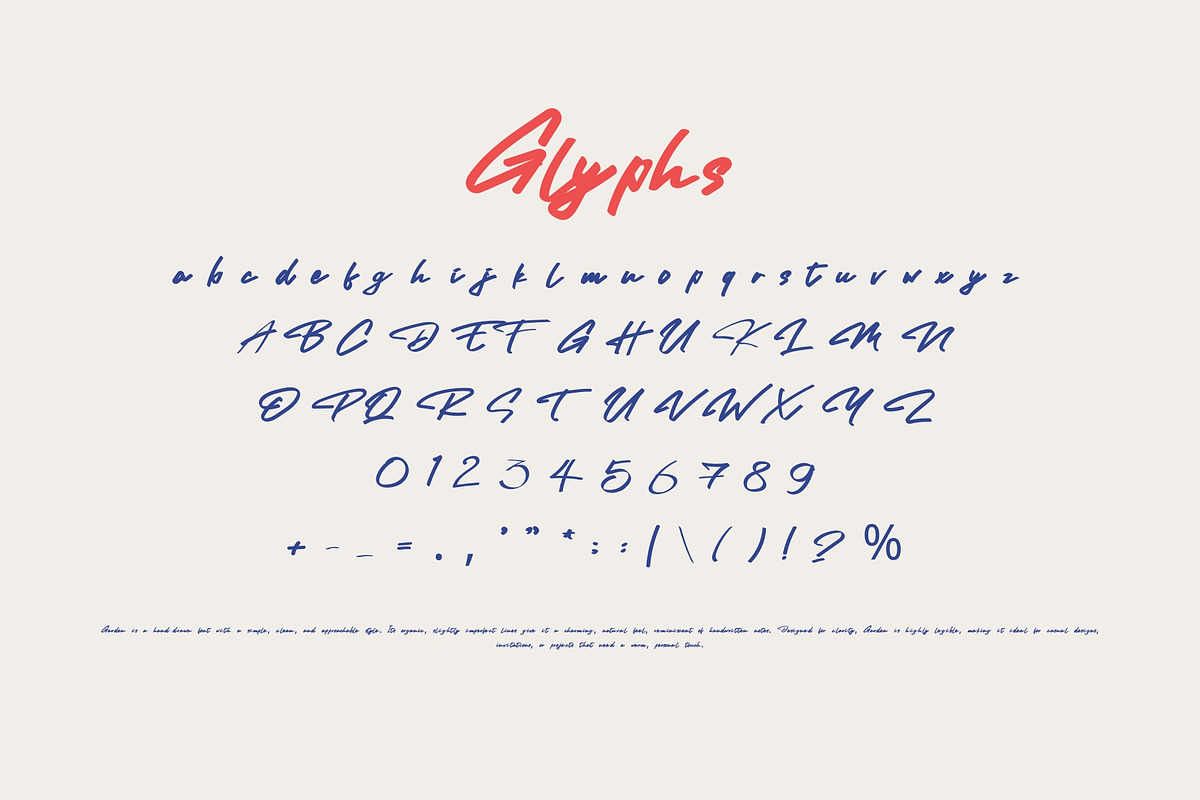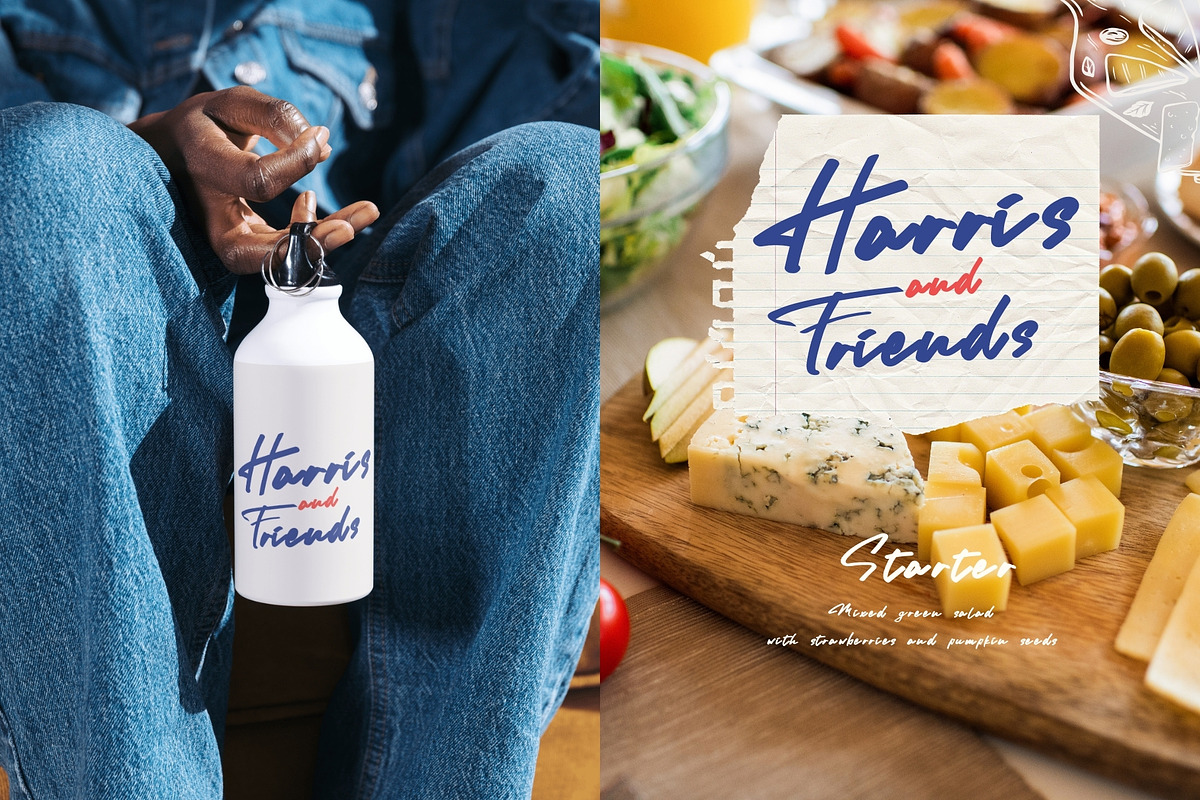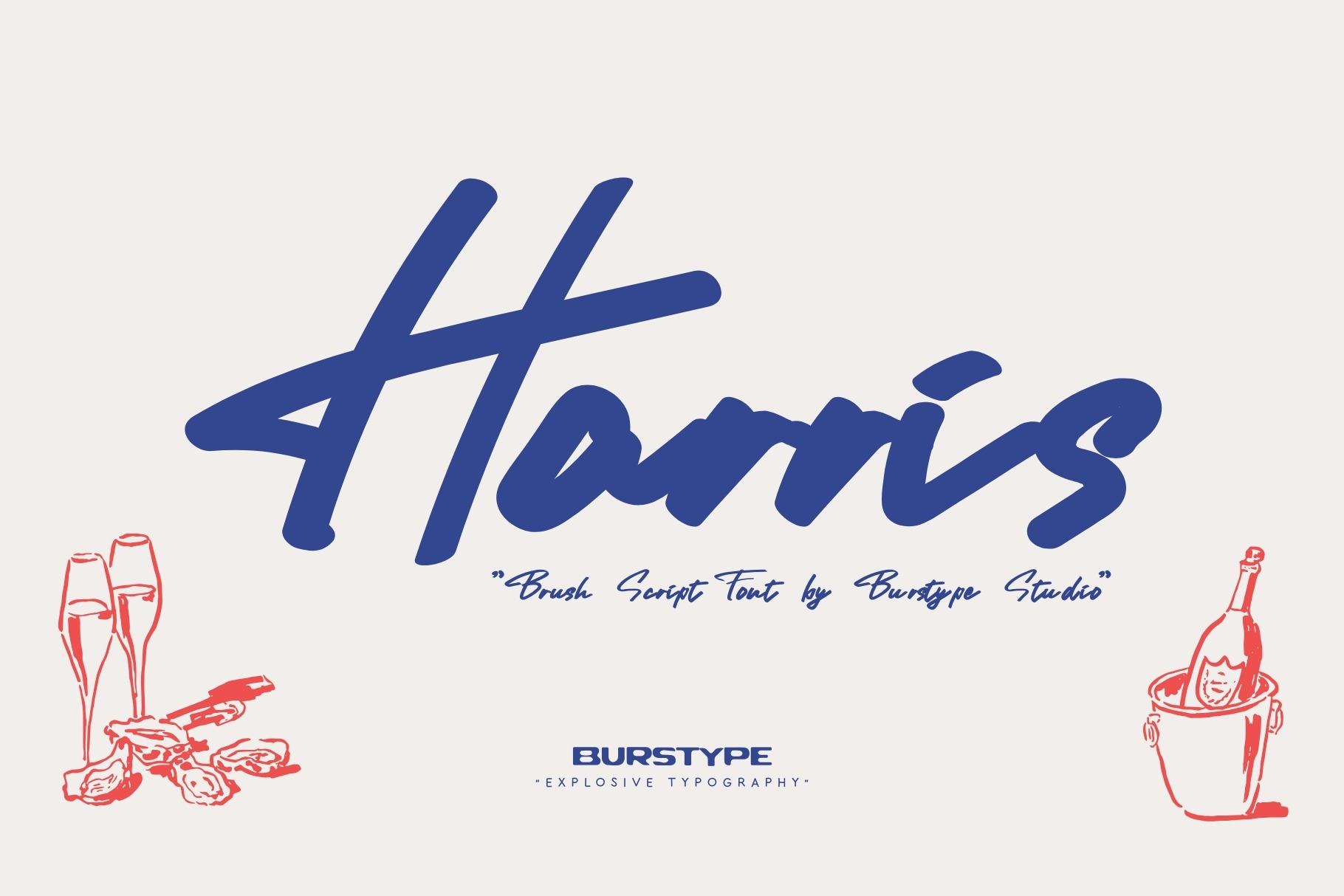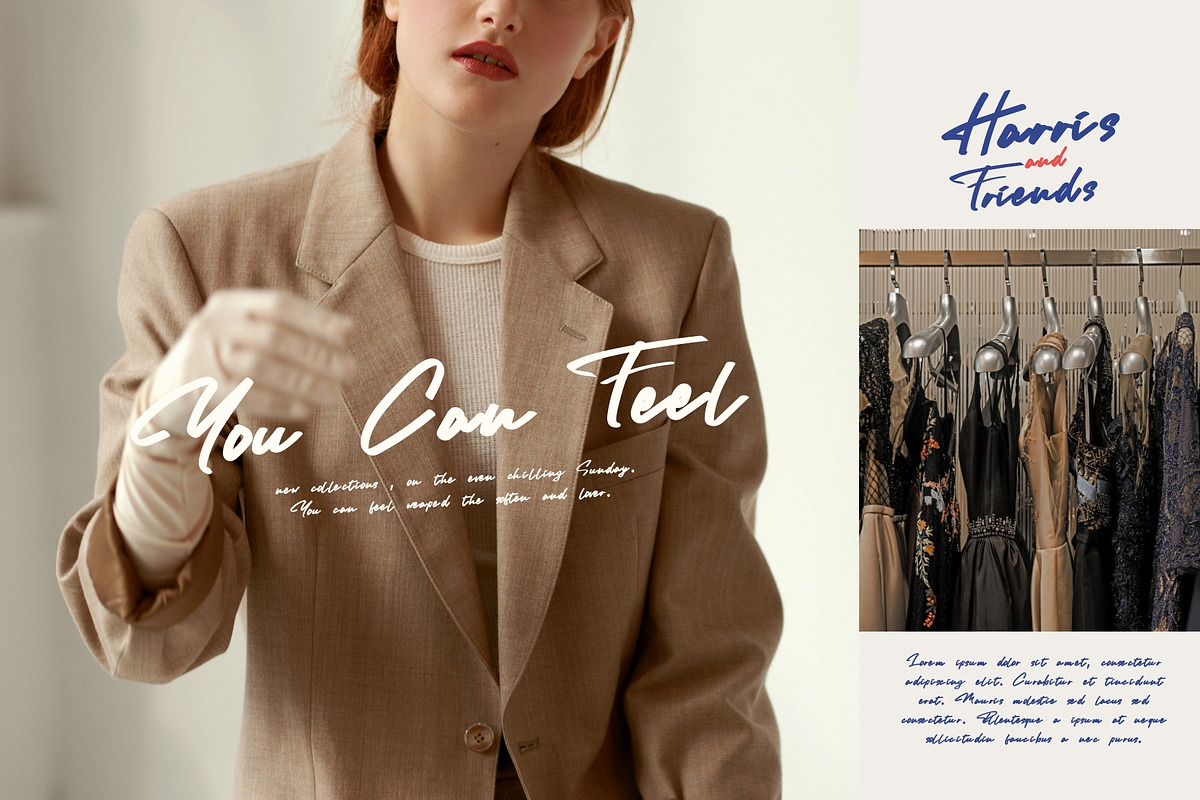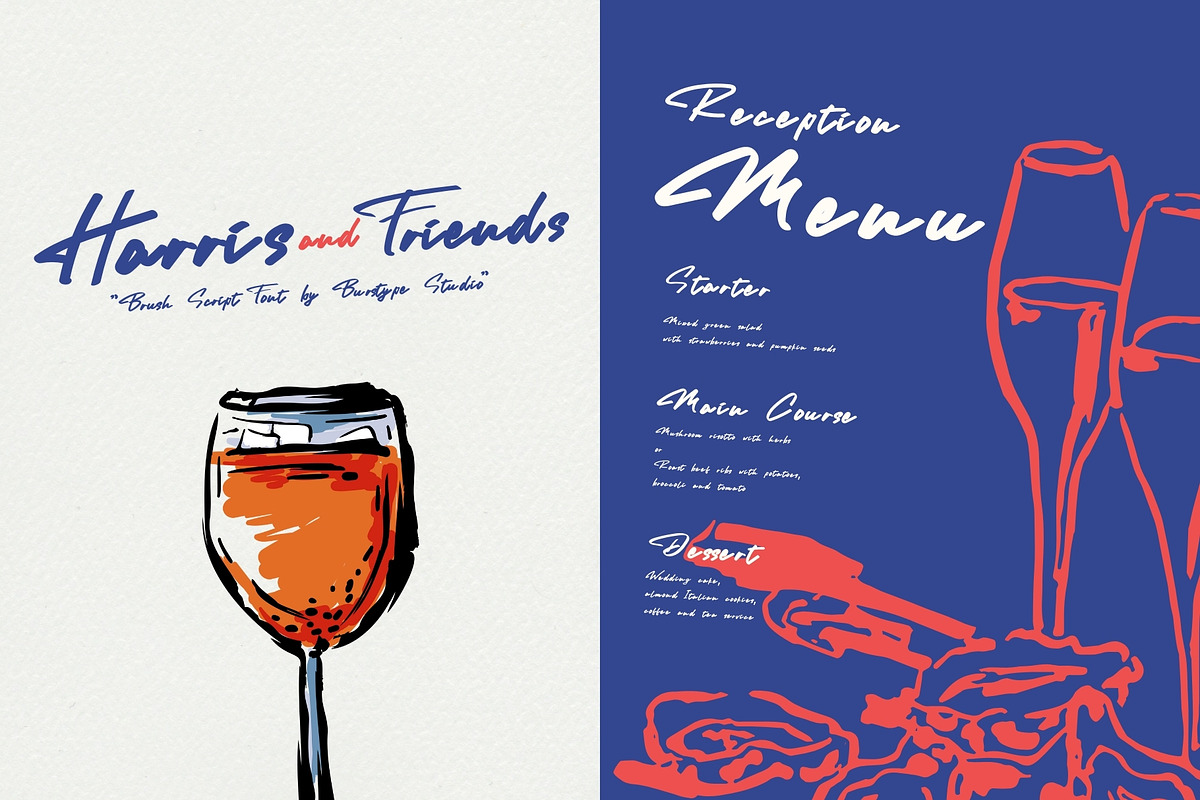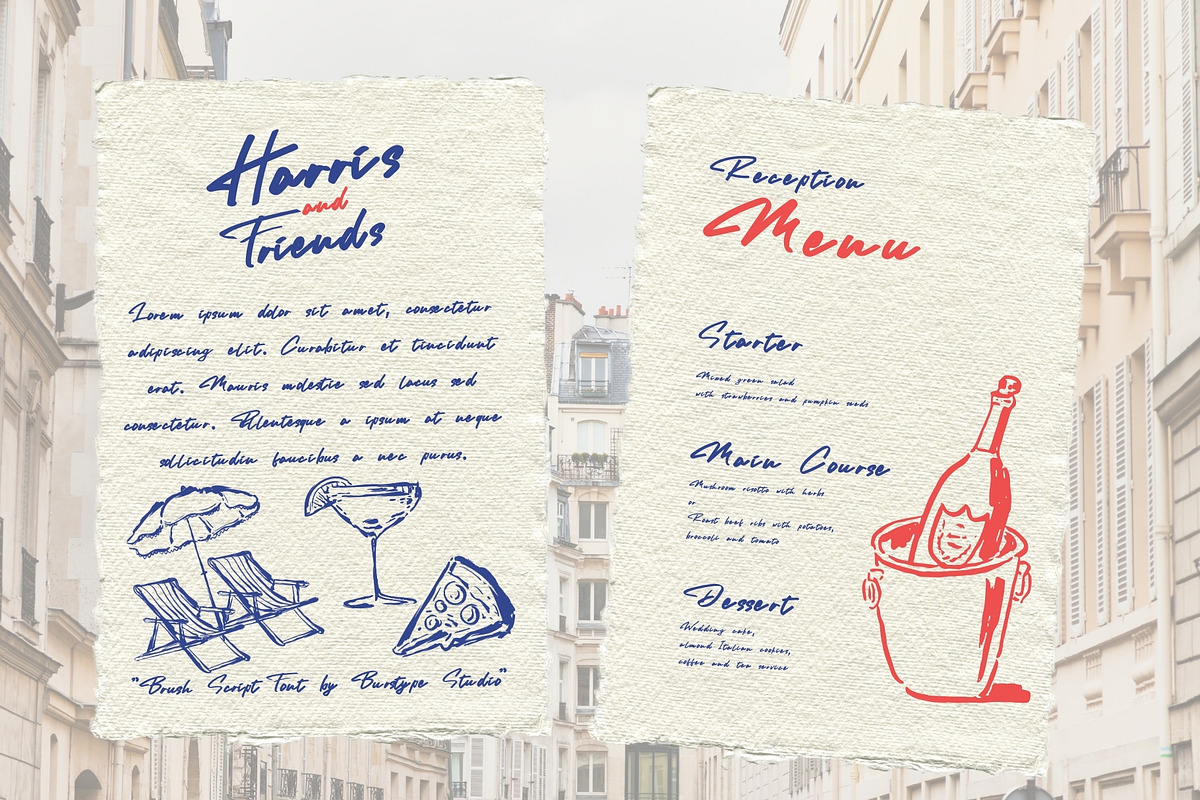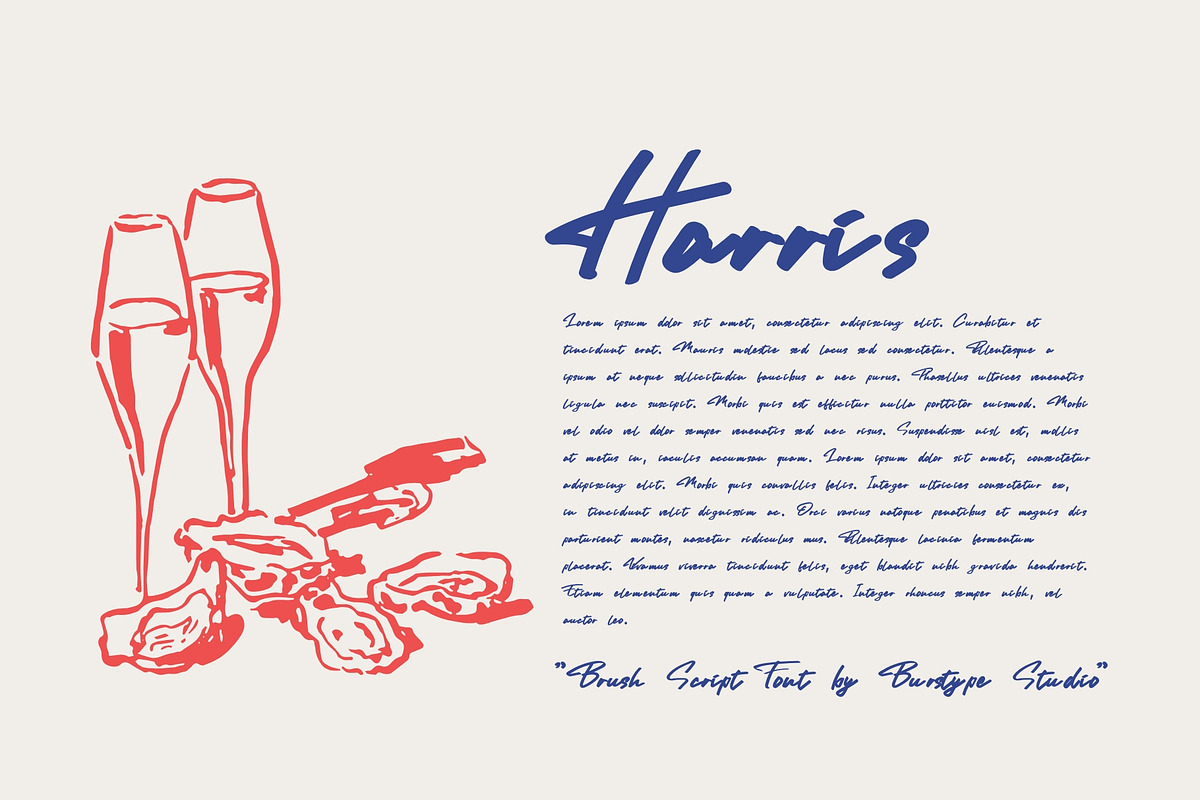
Harris : Brush Script Font
Harris is a striking, handwritten display font that combines effortless elegance with a bold, contemporary edge. With its flowing, expressive strokes and multilingual support, this font radiates a dynamic, handcrafted charm that feels both confident and inviting.
Elevate your designs with the sophisticated yet cool vibe of Harris — a script font that balances playful imperfection with a commanding presence. Its fluid, organic lines capture the essence of hand-drawn artistry, making it the perfect choice for creative projects that need to stand out.
Carefully designed to reflect the spontaneity of ink on paper, Harris blends the grace of traditional calligraphy with a modern, urban flair. Its confident swagger and versatile character infuse warmth and boldness into any design, ensuring it leaves a lasting impression.
With an extensive collection of stylistic alternates and ligatures, Harris offers boundless creative flexibility to tailor your typography. This font is ideal for branding, posters, social media graphics, event invitations, packaging, or any project that calls for a distinctive, handcrafted look with a cool, confident personality.